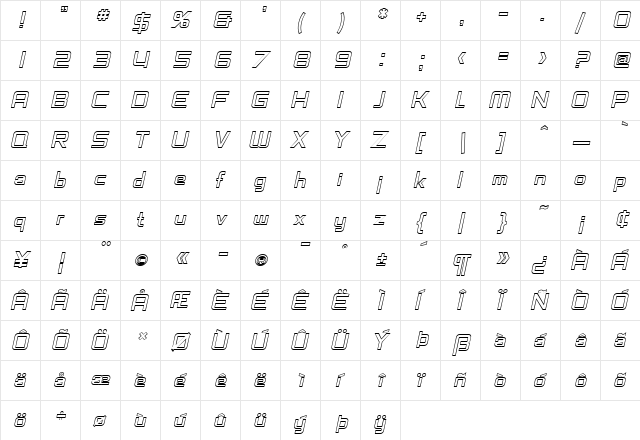
SF Chaerilidae Outline Oblique
Design Context for SF Chaerilidae Outline Typeface
SF Chaerilidae Outline brings ornamental detail and strong personality to headlines and identities, where visual impact matters more than quiet functionality. The slanted form adds forward momentum and visual energy.
Font Pairing: Pair with a clean neutral sans-serif for body copy to let SF Chaerilidae Outline's character lead without overwhelming the composition.
Pro Tip: Use SF Chaerilidae Outline exclusively at display sizes — it was designed to be seen, not read at length. Let a neutral companion handle body copy.